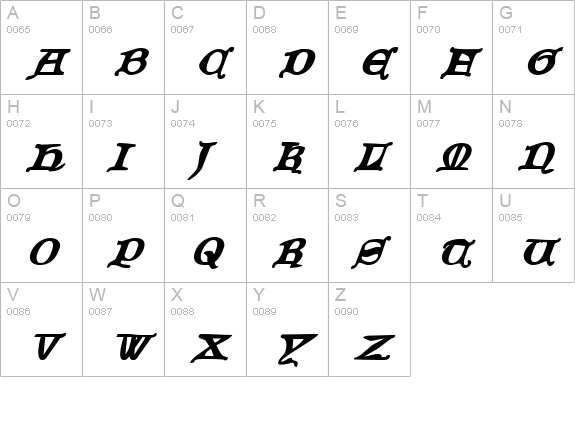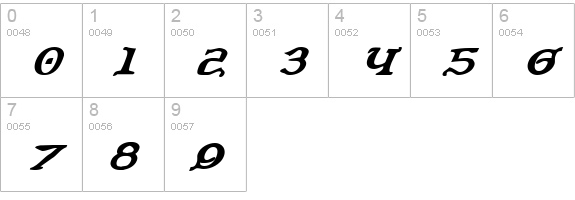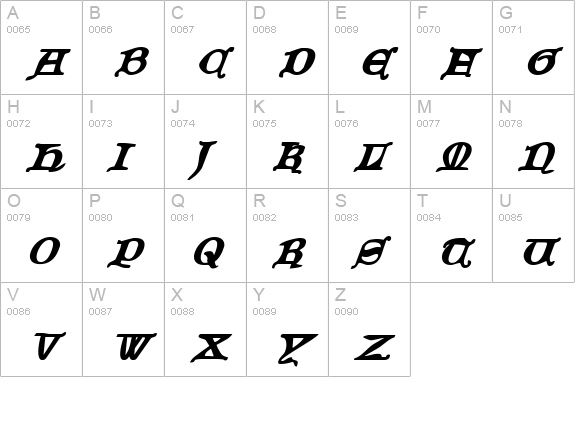
Queen & Country Bold Italic is a strong, high-contrast, italic variant in the Queen typeface family \xE2\x80\x94 well suited to headlines, attention-grabbing titles, and strong calls-to-action.
Queen & Country Bold Italic font is a striking and elegant typeface that exudes a sense of regal sophistication. Its bold and italicized design adds a touch of flair and uniqueness to any project, making it perfect for headlines, titles, and other prominent text elements. The font's sharp, clean lines and strong presence make it ideal for creating eye-catching designs that demand attention. What sets Queen & Country Bold Italic font apart is not only its visually striking appearance but also its versatility. Whether used in print or digital media, this font is sure to make a bold statement and leave a lasting impression on viewers. Best of all, Queen & Country Bold Italic font is available for free download at FontsMarket.com. That means you can easily add this stunning typeface to your font library without any cost, making it accessible to designers and creatives of all levels. Don't miss out on the opportunity to enhance your designs with the elegance and sophistication of Queen & Country Bold Italic font. Download it today and elevate your projects to new heights.